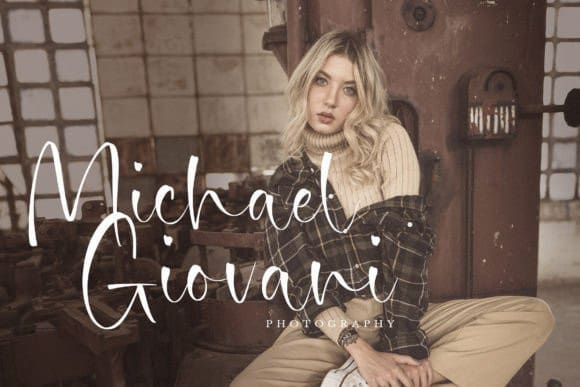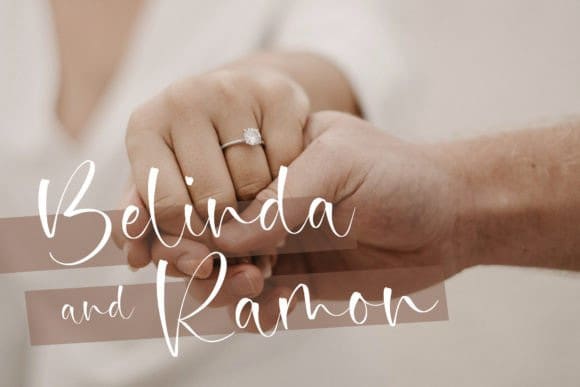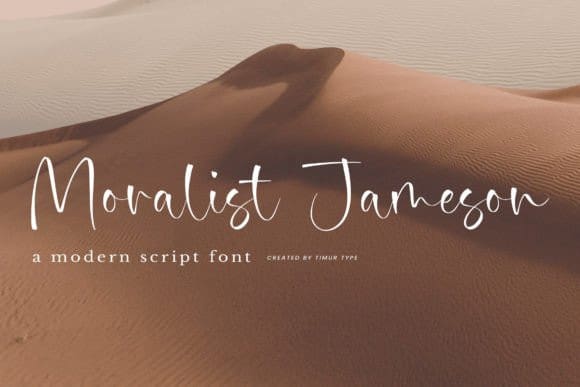
Moralist Jameson Font
Moralist Jameson Font is a stylish and incredibly elegant script font. It looks stunning on wedding invitations, thank you cards, quotes, greeting cards, logos, business cards, and every other design which needs a handwritten touch.